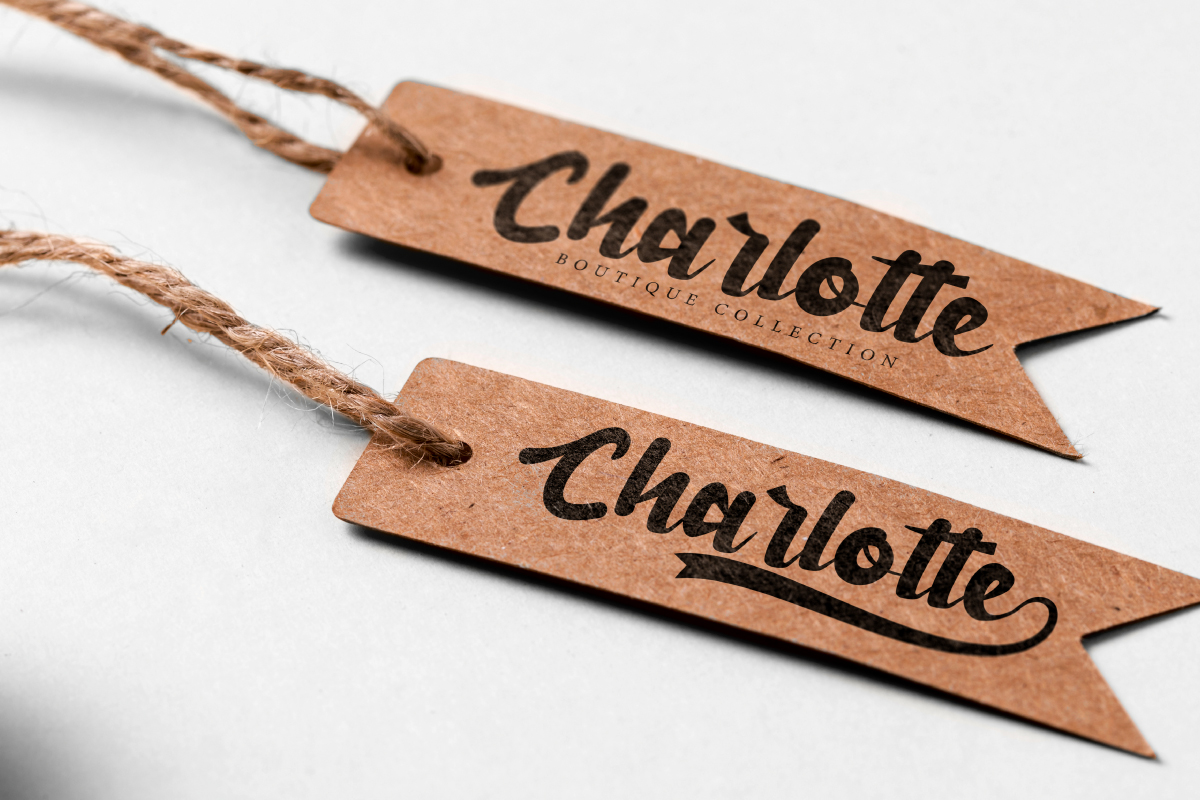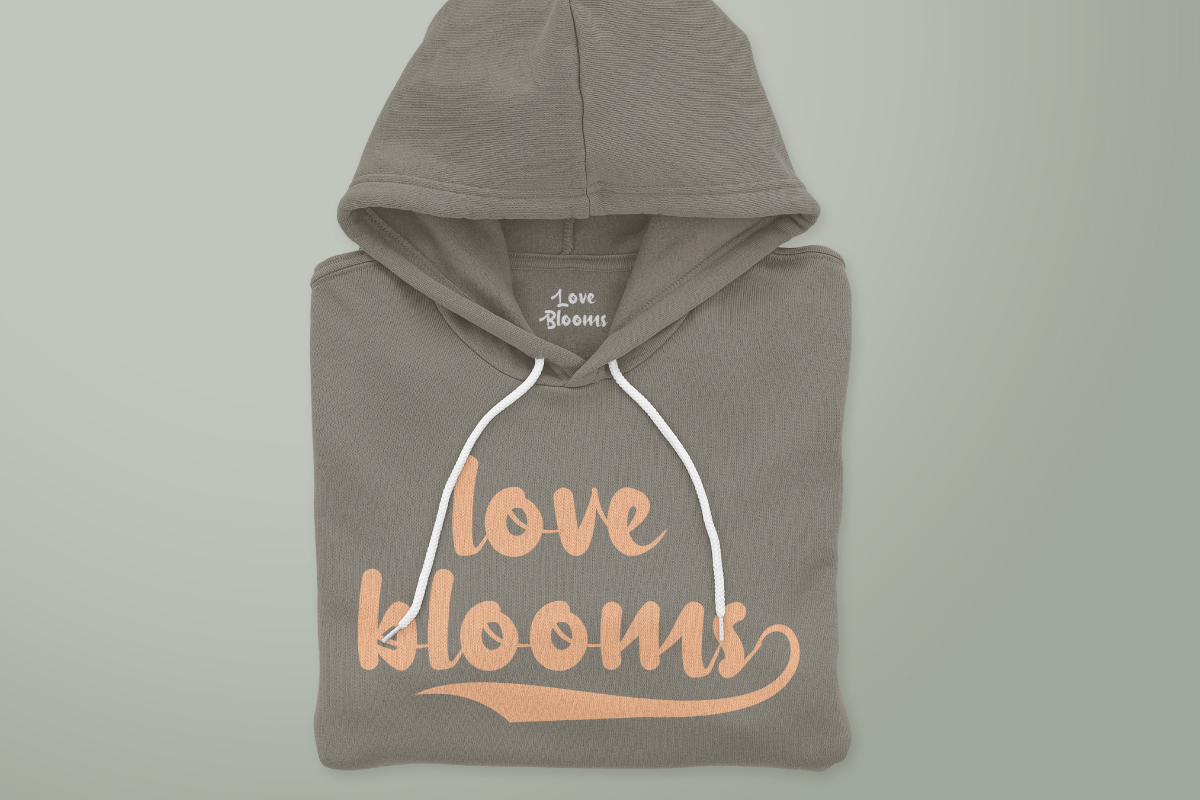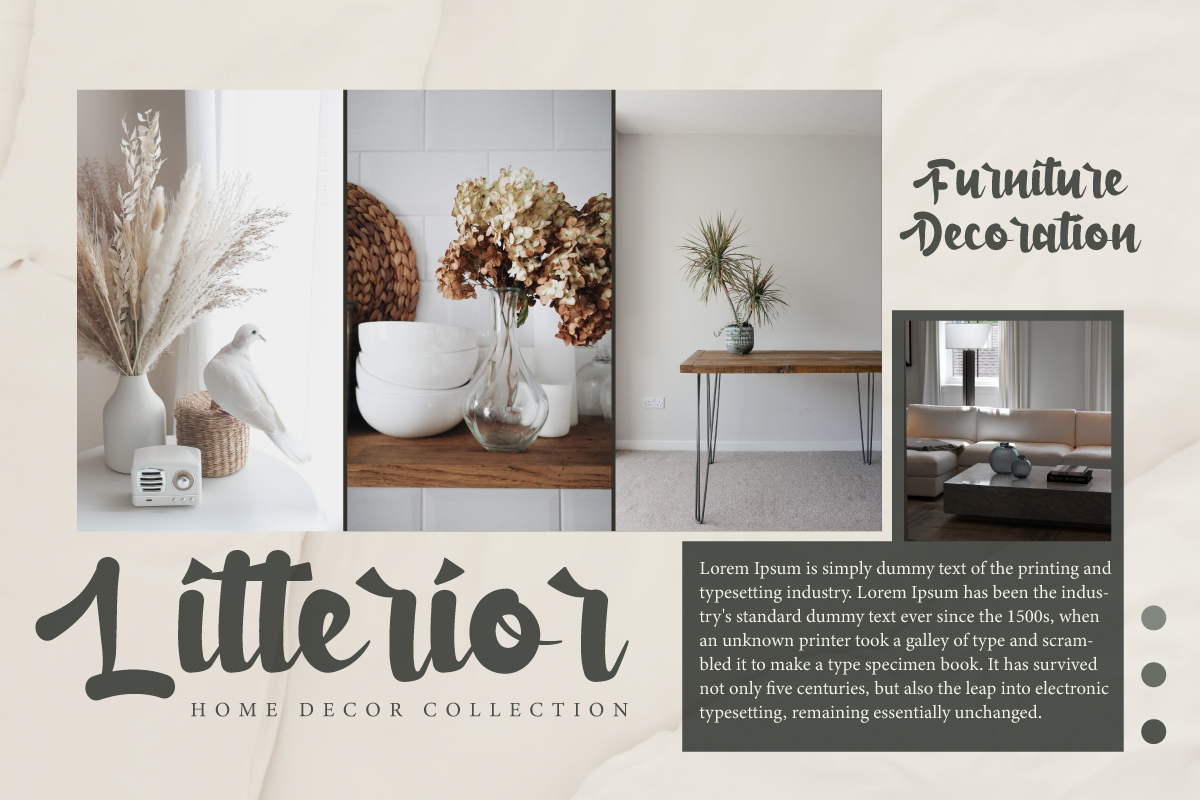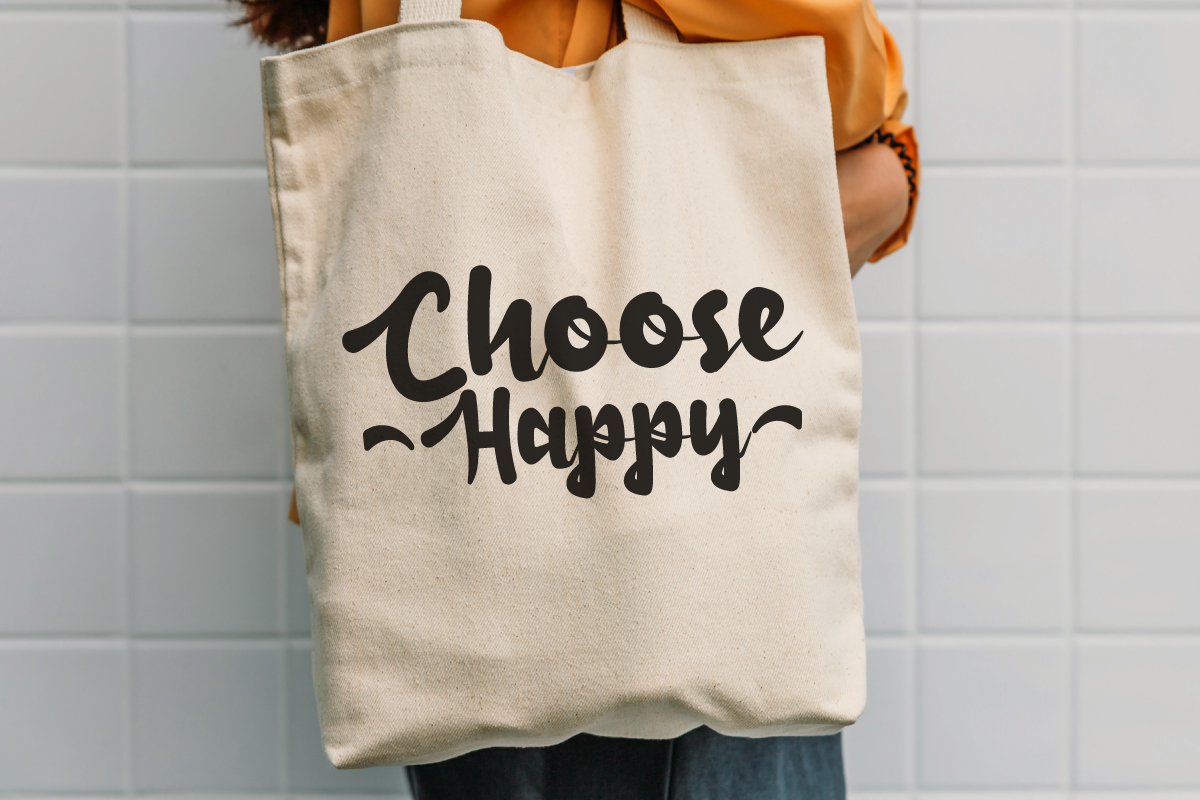
Antonia Font
Antonia Script Font
This is thick and beautiful handwriting with calligraphy style. This cursive is inspired by the handwritten style of the royal era which is easy to read and ensures it looks good. It will be amazing for any project: blog headers, custom tote bag, headline, label, magazine design, menu flyer, print design on clothes, and more.
Antonia Font includes full set of Uppercase and Lowercase Basic Characters, Numerals and Punctuation. Also contains a swoosh to create an elegant and stylish look. It will be perfect for any industries such as, architect, boutique, entertainment, fashion, florist, furniture, restaurant, writer, and anything to perfect your extraordinary project.